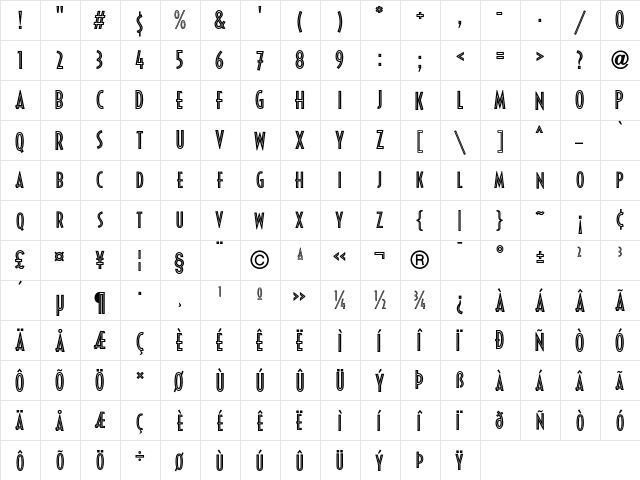
DecoturaICG Inline
| Style | Inline |
Design Context for DecoturaICG Typeface
DecoturaICG brings ornamental detail and strong personality to headlines and identities, where visual impact matters more than quiet functionality.
Font Pairing: Pair with a clean neutral sans-serif for body copy to let DecoturaICG's character lead without overwhelming the composition.
Pro Tip: Use DecoturaICG exclusively at display sizes — it was designed to be seen, not read at length. Let a neutral companion handle body copy.